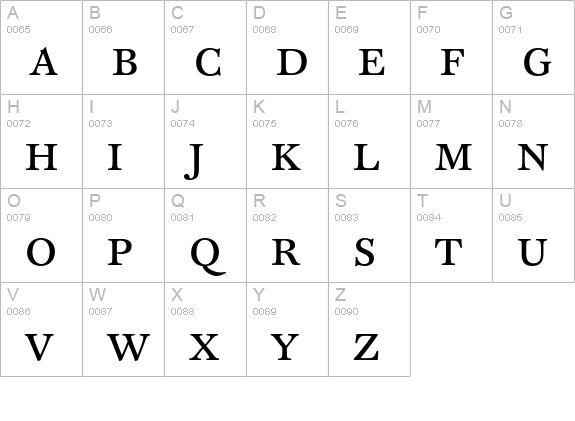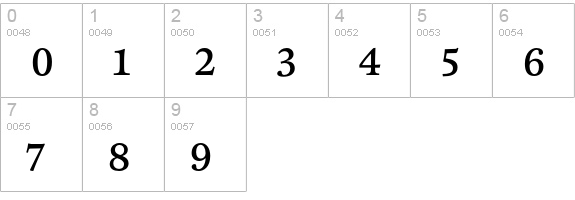
CliffordSix-RomanLF font is a unique and elegant typeface that exudes sophistication and charm. With its classic Roman style, this font is perfect for adding a touch of timeless beauty to any project. The clean lines and subtle curves of CliffordSix-RomanLF make it a versatile choice for a wide range of design applications, from branding to editorial design. Best of all, CliffordSix-RomanLF is available for free download at FontsMarket.com, making it easily accessible to designers and creatives looking to elevate their work with a touch of elegance. Whether you're working on a print design, web project, or anything in between, CliffordSix-RomanLF is sure to make a stylish statement. Download this exquisite font today and add a touch of classic beauty to your next design project.